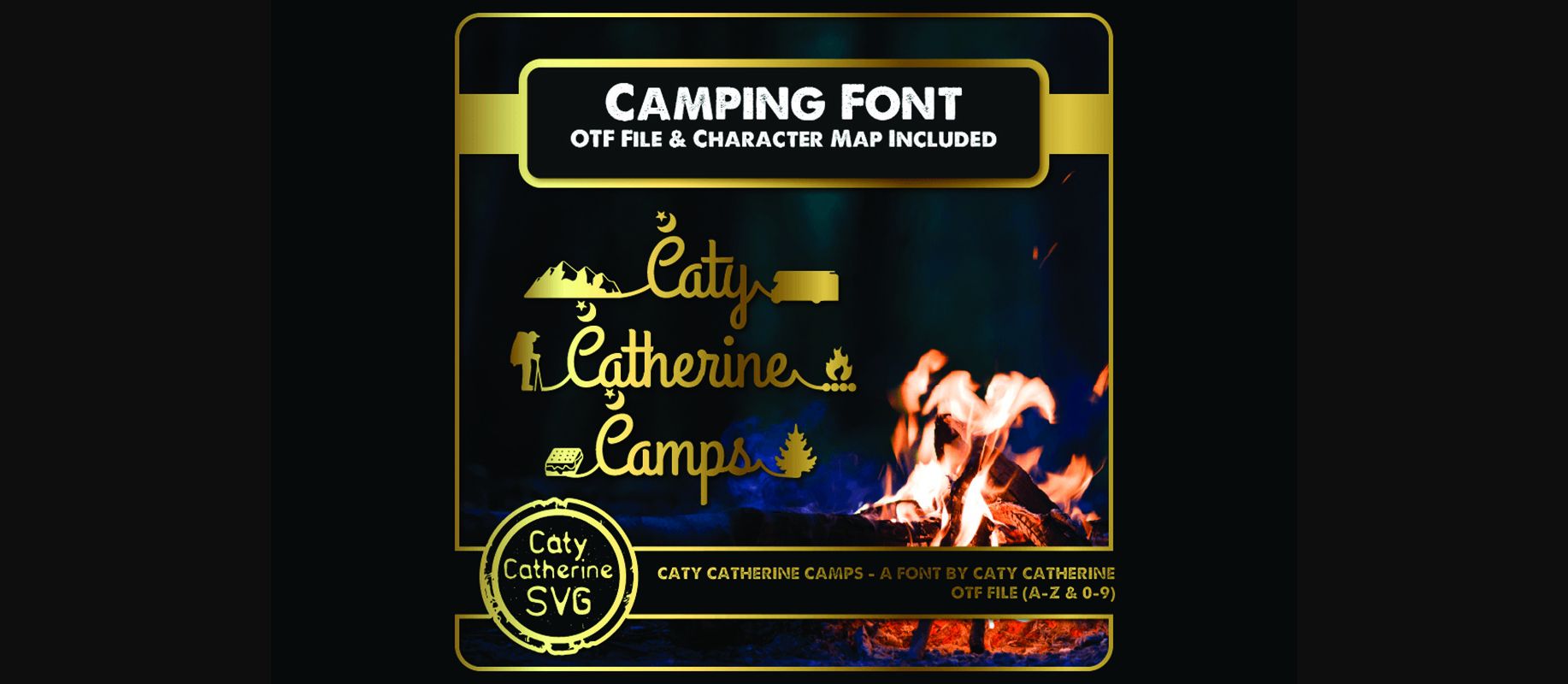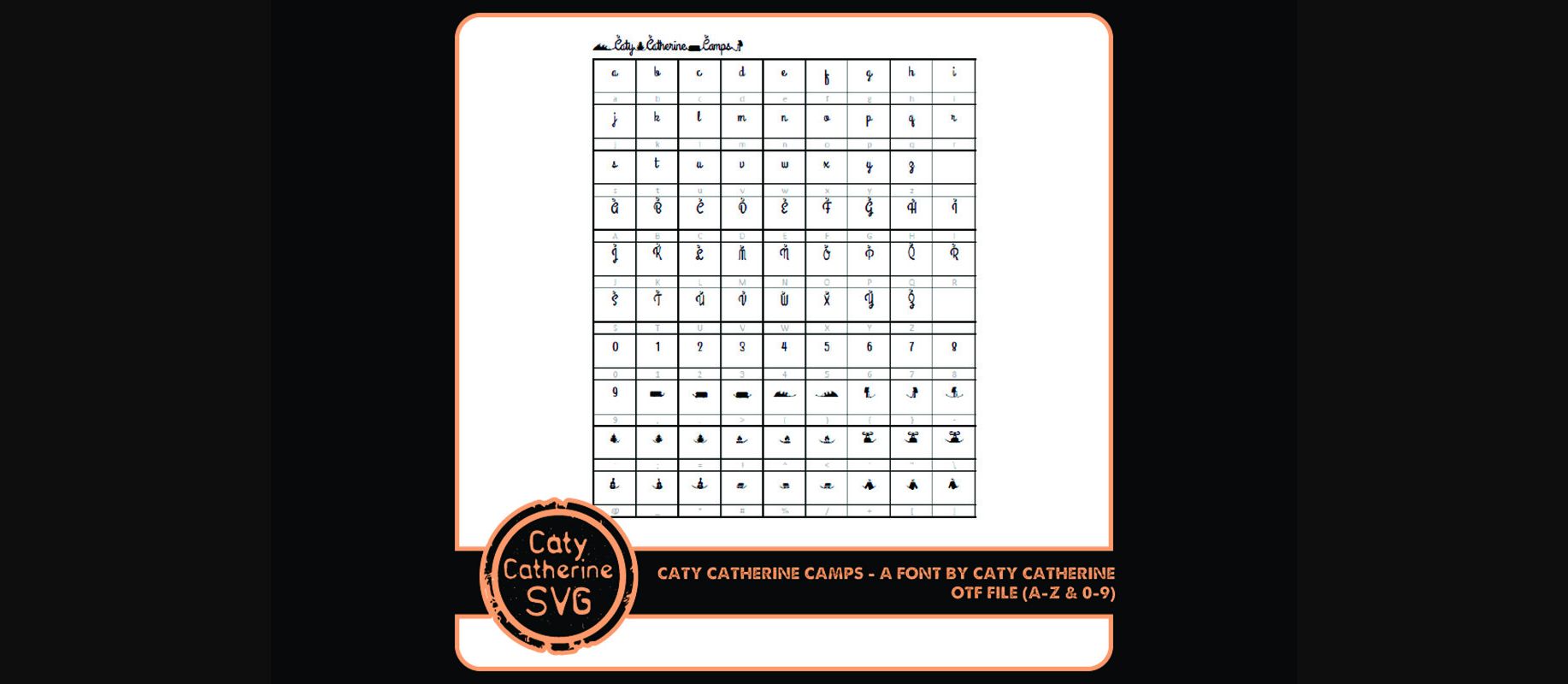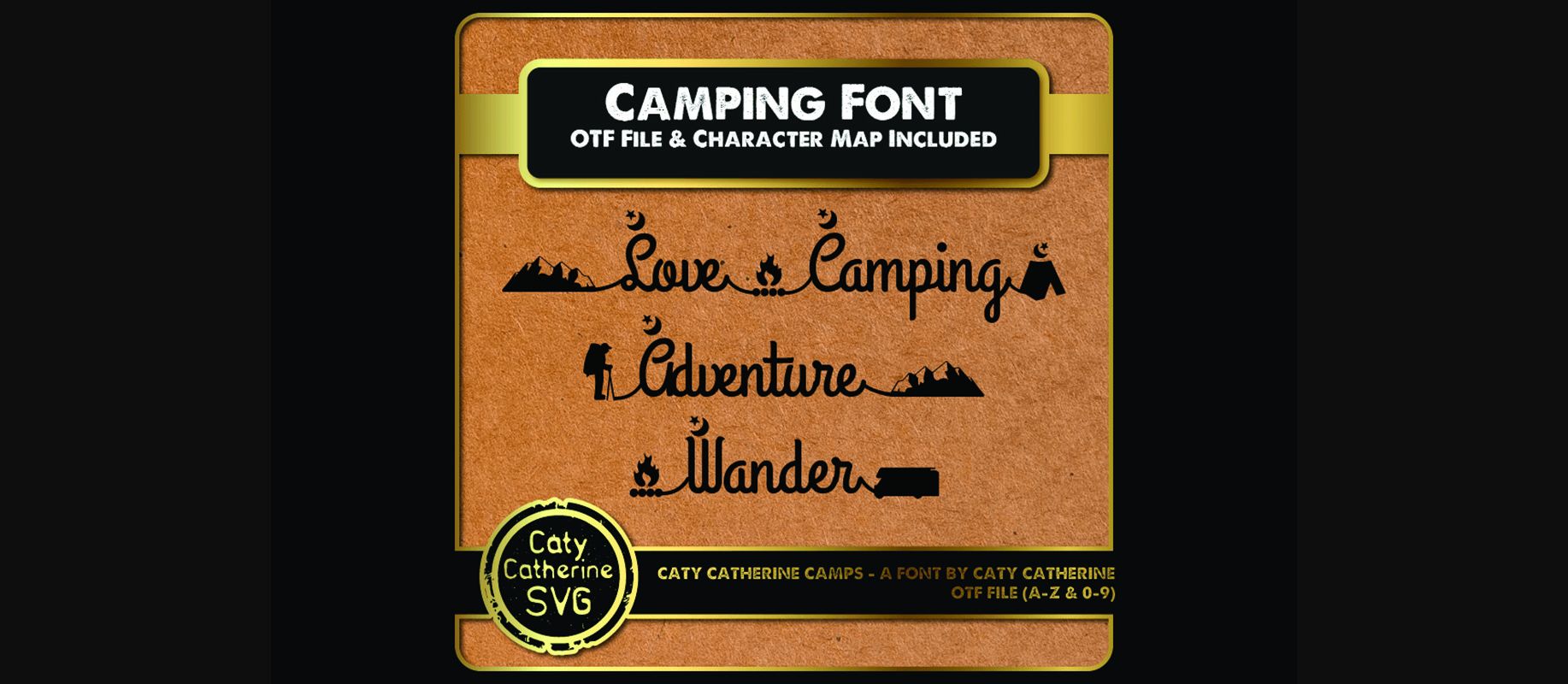
HomeDecorative FontsCaty Catherine Camping Font Decorative Fonts Caty Catherine Camping Font FacebookXPinterestWhatsApp 1 of 5 ... Caty Catherine Camping Font Poster 2... Caty Catherine Camping Font Poster 3... Caty Catherine Camping Font Poster 4... Caty Catherine Camping Font Poster 5... About Caty Catherine Camping Font Caty Catherine Camping is a cute and fun looking decorative font. Add this font to your most creative ideas, and notice how it makes them stand out! DOWNLOAD NOW People also explored Snowing Cold Outside Font New Brug Font Death Demon Font Morning Brew Font Bluetank Font Shallymore Font Cooper Font Good Notes Font Classy Bold Font 409 0 TagsCaty Catherine Camping Font Previous articleCaty Catherine Hunts FontNext articleMerry Floral Font LEAVE A REPLY Cancel reply Comment: Please enter your comment! Name:* Please enter your name here Email:* You have entered an incorrect email address! Please enter your email address here Website: Save my name, email, and website in this browser for the next time I comment. Personal Use Free Metal Lord Personal Use Free Read more about this font Wondery Personal Use Free Read more about this font Luxima Personal Use Free Read more about this font Hagia Signal Personal Use Free Read more about this font BLOG Modern Sans-Serif Fonts That Brands Love in 2025 In 2025, modern sans-serif fonts remain a top choice for brands looking to project clarity, professionalism, and... To increase your work productivity, choose the most readable fonts. The 10 Best Handwriting Fonts to Add Personality to Your Designs Best Fonts for YouTube Videos: Make Your Thumbnails Stand Out